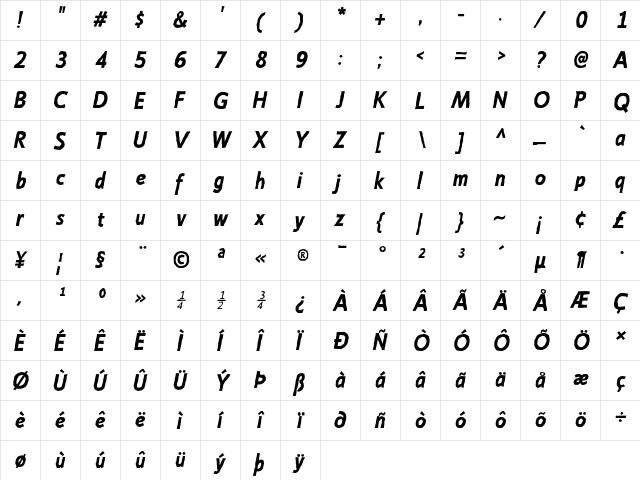
Emory Bold Italic
Design Context for Emory Typeface
Emory is a composed and adaptable typeface that performs quietly and consistently across a wide range of design contexts. Its italic angle brings a sense of urgency and motion to the letterforms. The heavy weight commands attention and anchors typographic hierarchies.
Pro Tip: Try Emory for annotation and caption copy alongside an upright companion — the contrast in angle creates a dynamic but ordered typographic system.